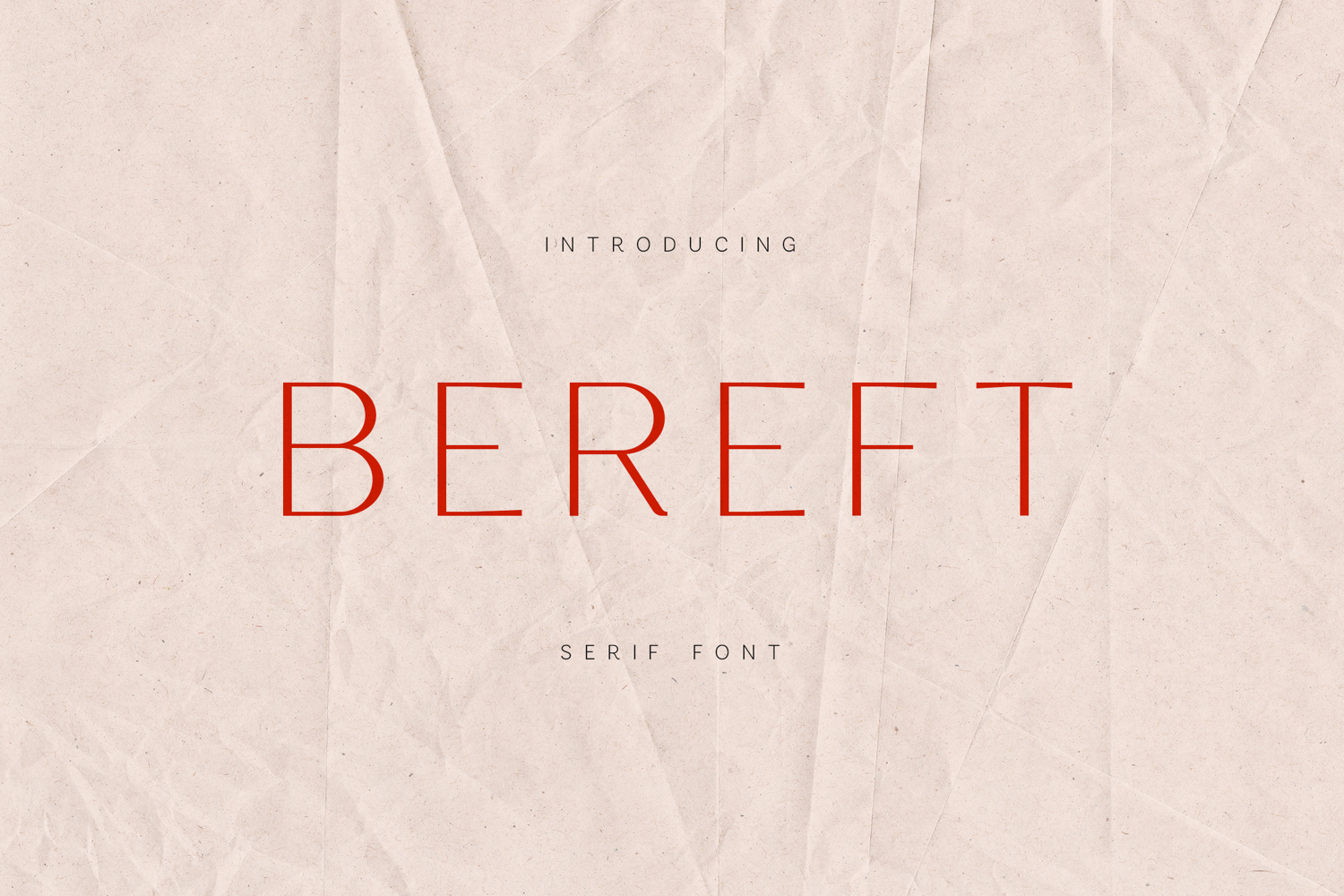
Beret Modern Editorial Serif Font
Beret is a modern editorial serif font defined by precision, clarity, and refined minimalism. With its clean strokes, balanced proportions, and elegant spacing, Beret delivers a contemporary serif voice that feels confident, stylish, and effortlessly premium.
Designed for editorial layouts, fashion branding, magazines, posters, book covers, packaging, and high-end visual systems, Beret excels where typography needs to feel modern yet timeless. Its sharp construction and restrained contrast create a strong presence without visual noise.
Beret performs exceptionally well in headlines and titles, where its spacing and geometry can fully breathe. It pairs beautifully with neutral sans serifs, making it ideal for sophisticated branding systems and editorial-driven design projects.
The font includes uppercase and lowercase letters, numerals, punctuation, symbols, and extensive multilingual support, ensuring professional and international usability.
If you’re looking for a serif font that feels modern, clean, and fashion-forward without being cold, Beret offers precise typography with editorial elegance.